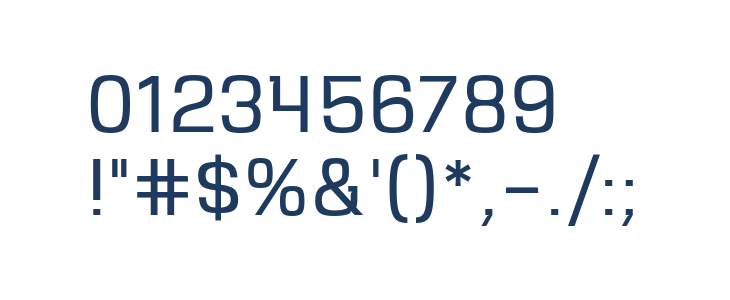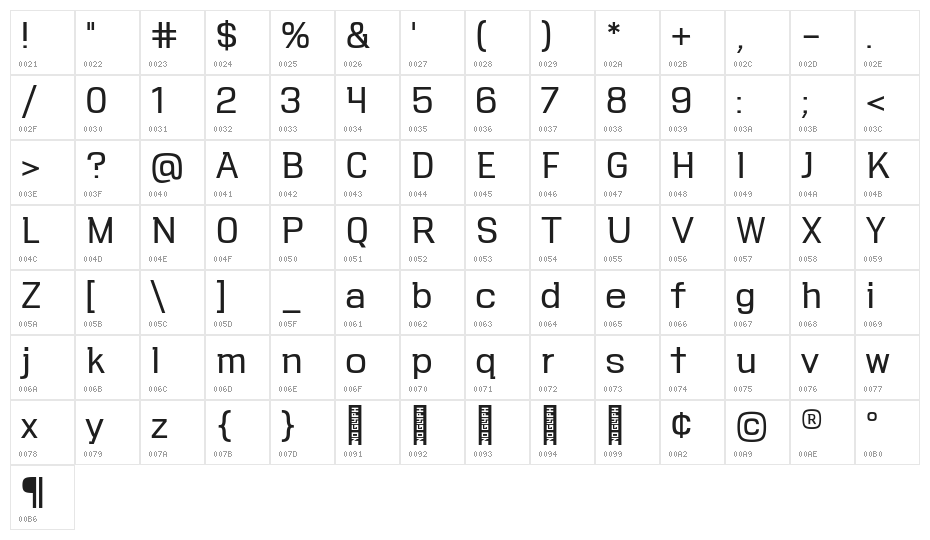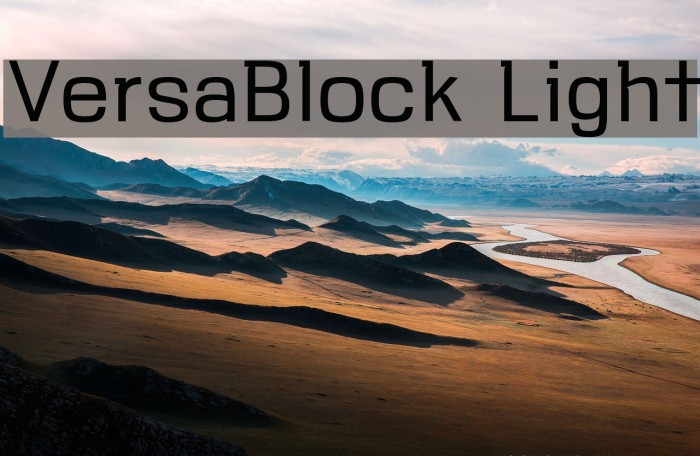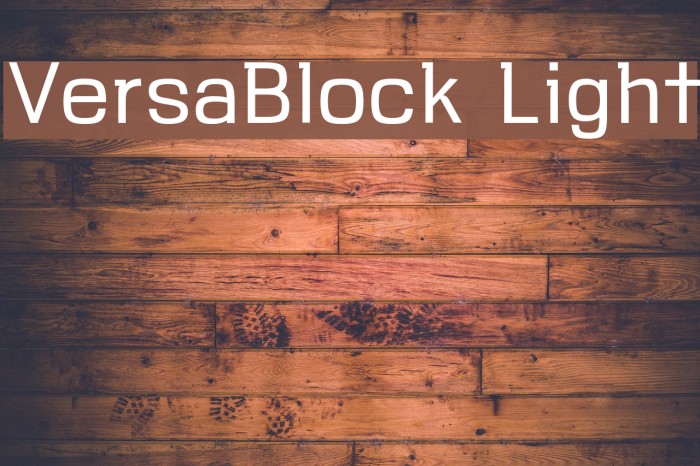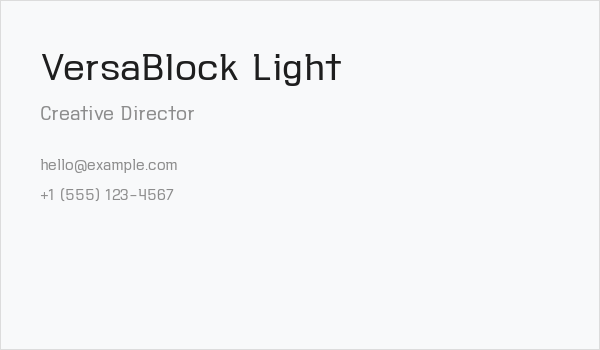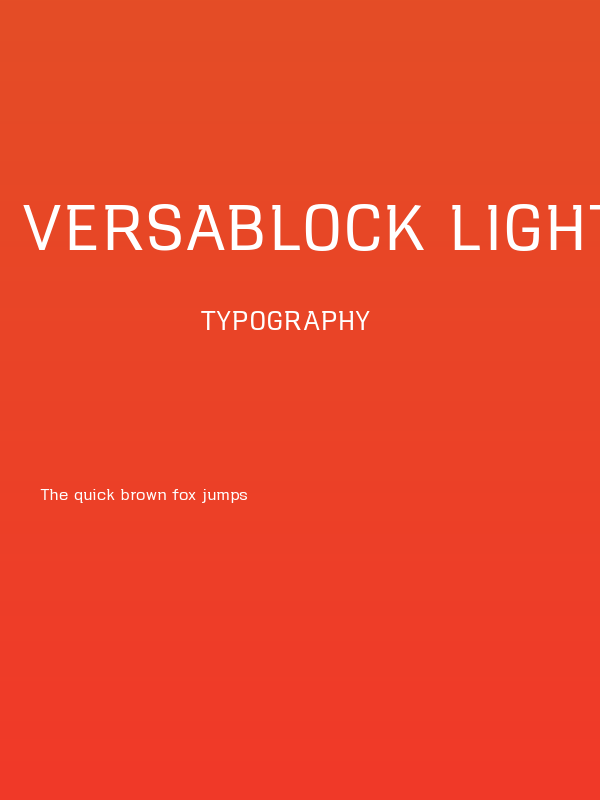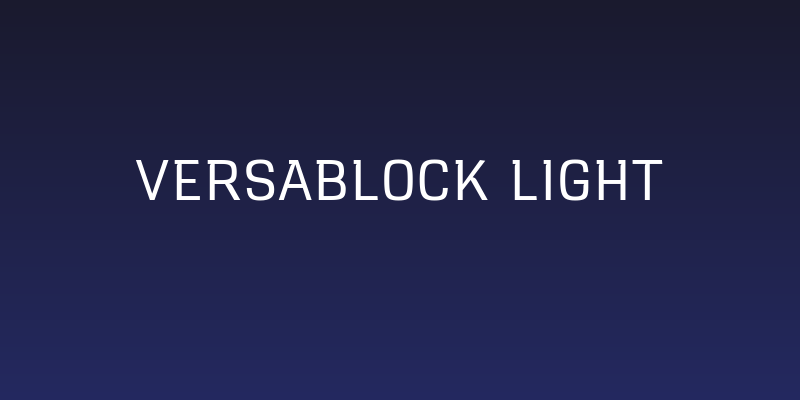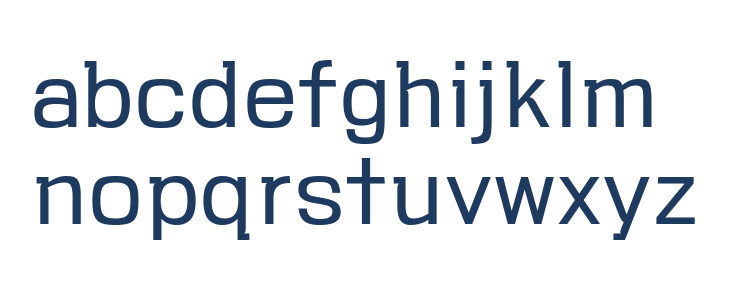
VersaBlock Light Font
✎ Sans Serif
VersaBlock Light Description
This font features a clean, modern sans-serif design with a light weight, making it ideal for a wide range of applications. Its characters are well-proportioned with a slightly condensed width, providing a sleek and professional appearance. The font maintains a consistent stroke width throughout, offering low contrast that enhances readability across various sizes. Its geometric shapes and precise lines contribute to a contemporary aesthetic, making it suitable for both digital and print media. The character spacing is normal, ensuring clarity and legibility. Overall, this font exudes a minimalist and efficient style, perfect for conveying information in a straightforward manner.
| Width | Condensed |
| Use Case | Headlines, Body text, Logos |
| Proposed Projects | Ideal for corporate branding, user interfaces, websites, and editorial design where clarity and modernity are key. |